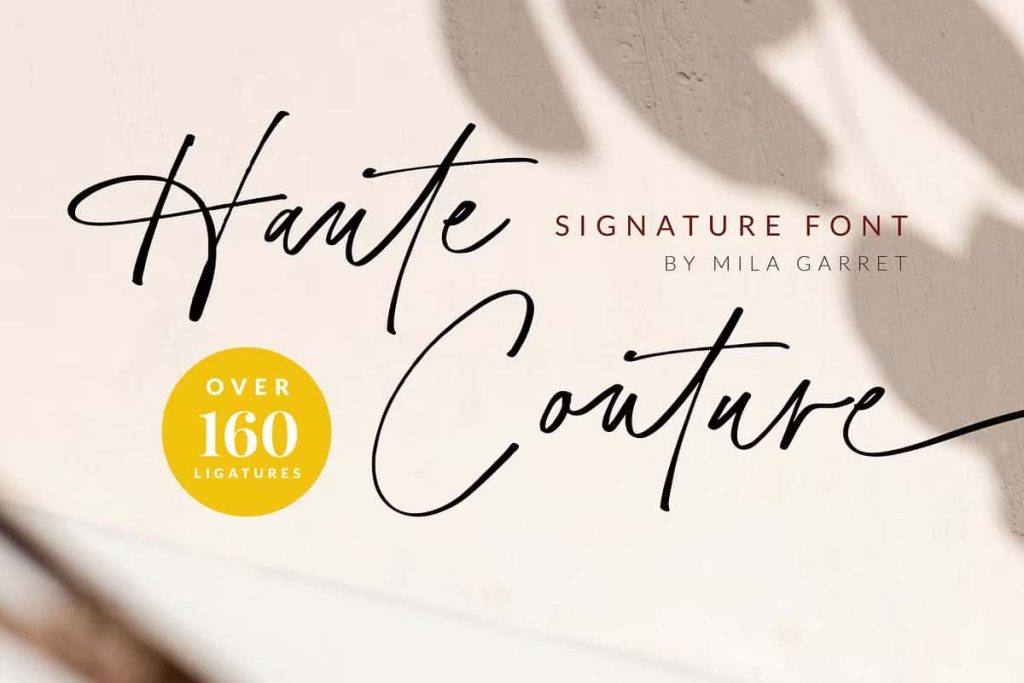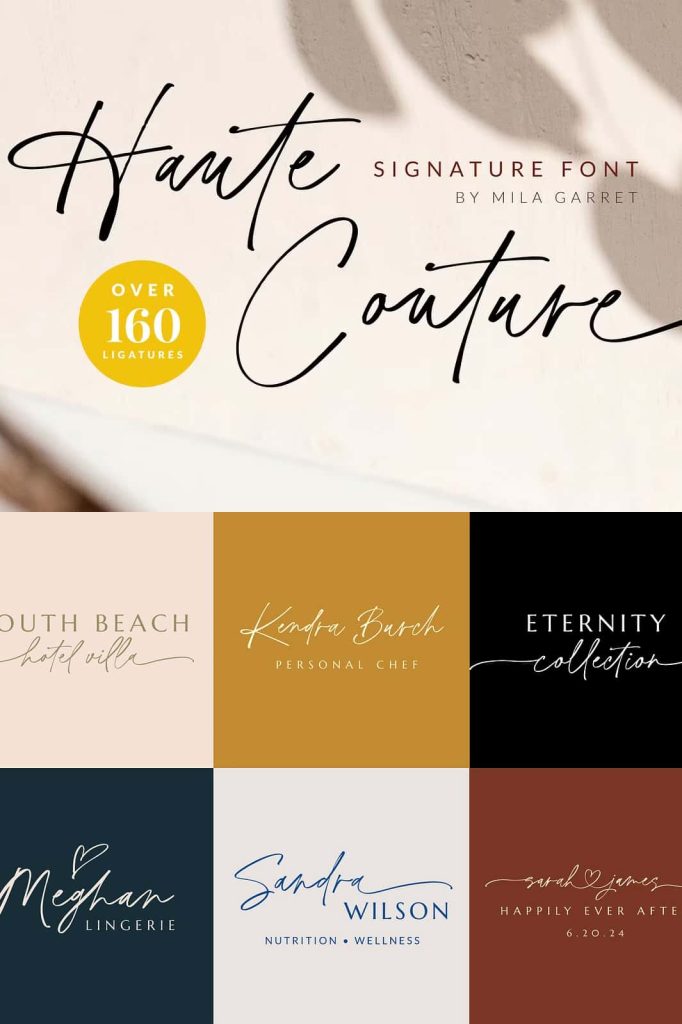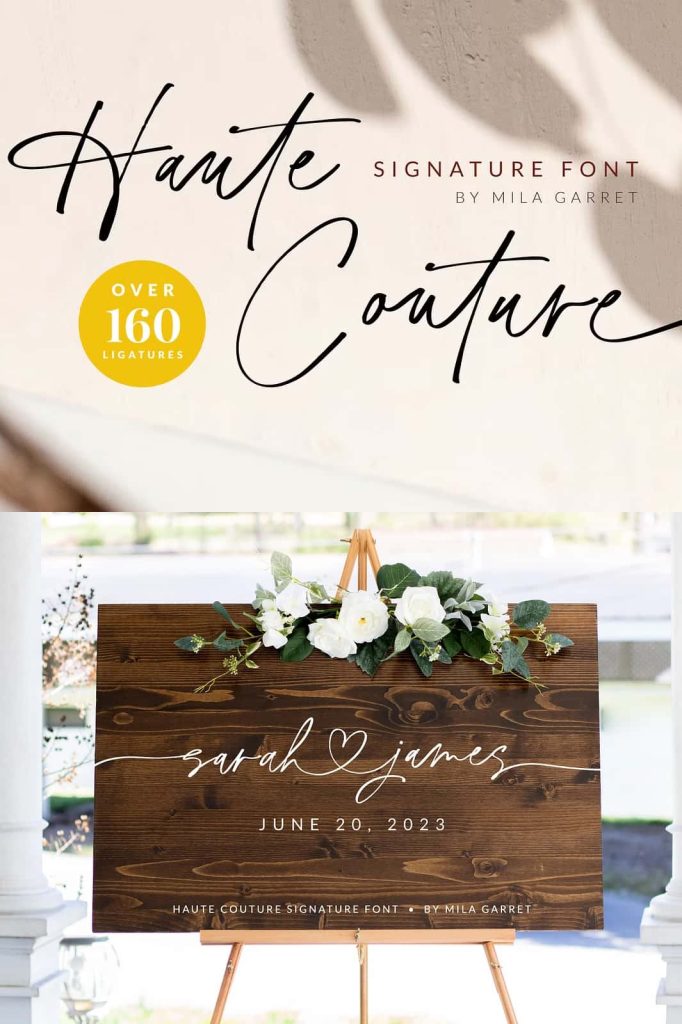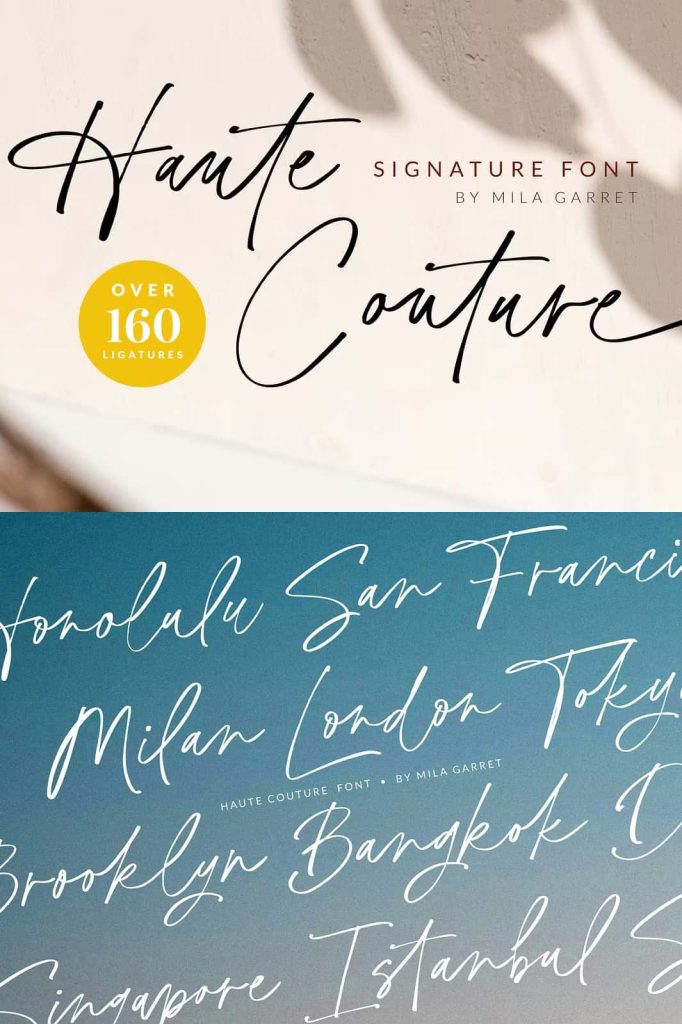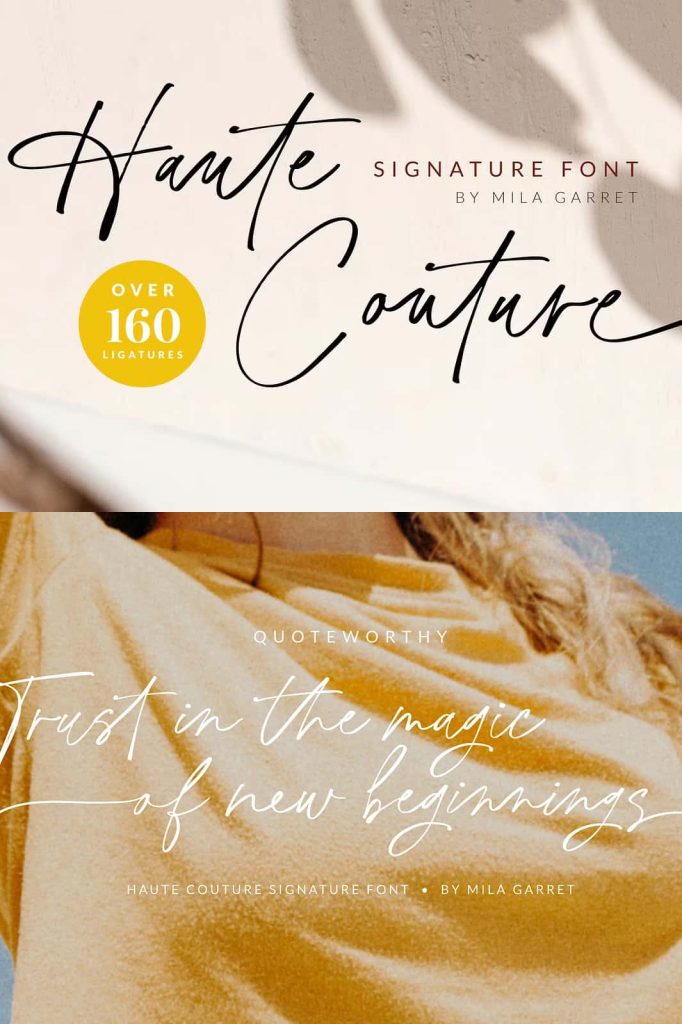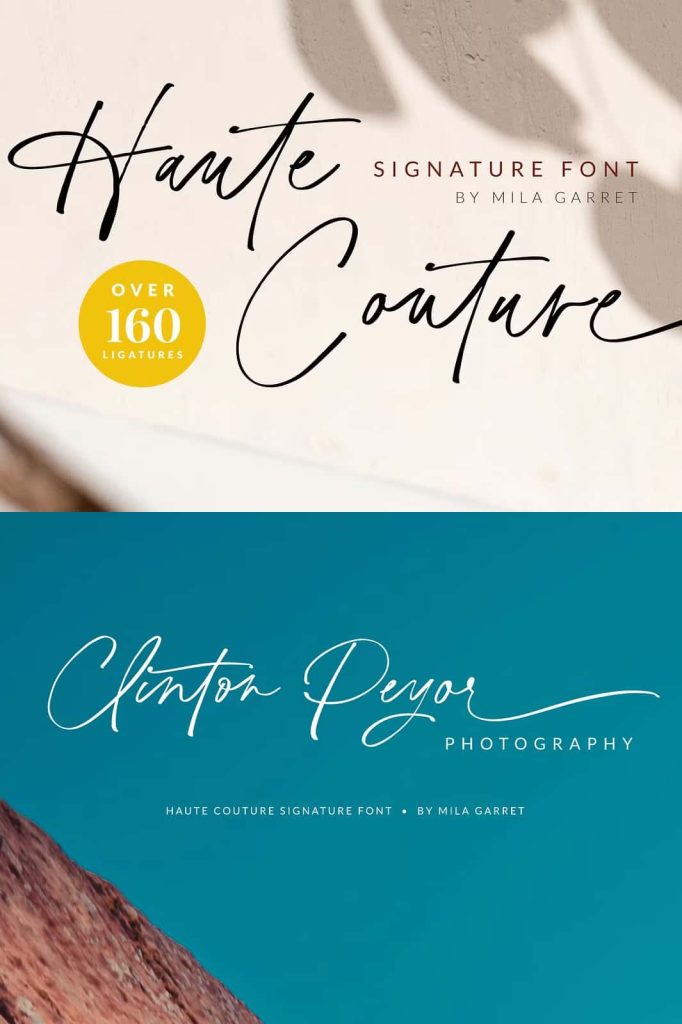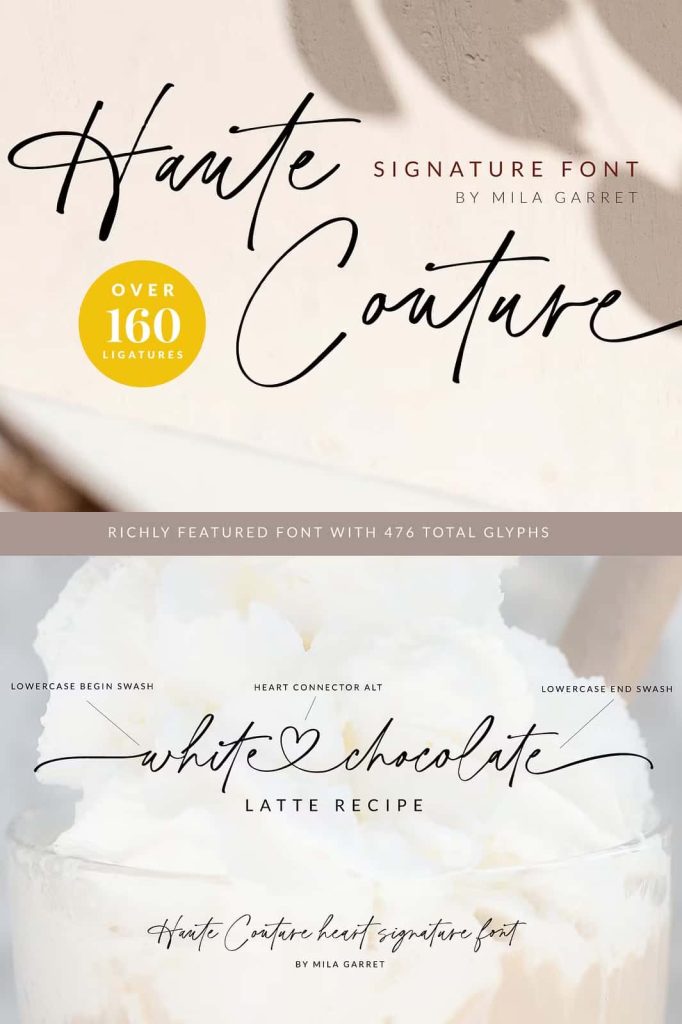
Haute Couture is a handwritten signature font with a calligraphy flair, ideal for creating handwritten-style logos, wedding stationery, photographer watermarks logos, modern websites, and more.